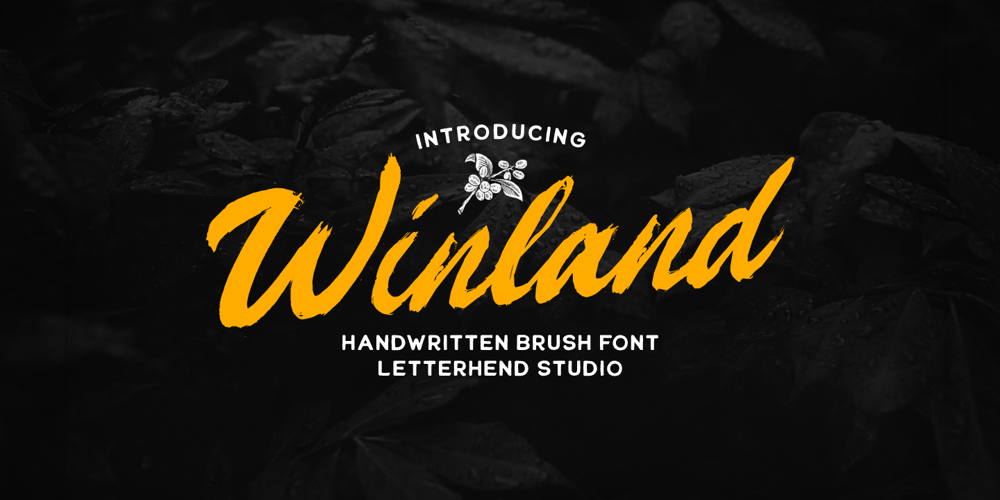
Winland Font Family was designed by Hendry Juanda and published by Letterhend. Winland contains 1 styles and family package options. Introducing, Winland. This font is carefully crafted by handwritten brush to get the feels of natural brush. you can use this font for branding, packaging, quotes, headline, etcFeatures : uppercase & lowercase (alternates) numbers and punctuation multilingual PUA encoded We highly recommend using a program that supports OpenType features and Glyphs panels like many of Adobe apps and Corel Draw, so you can see and access all Glyph variations.Thank You!